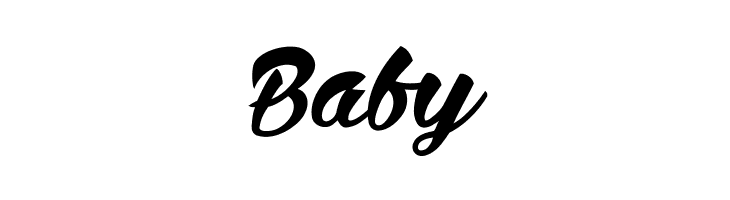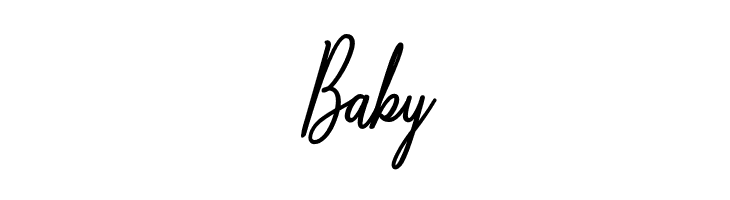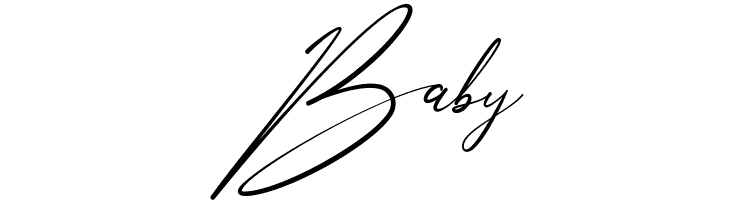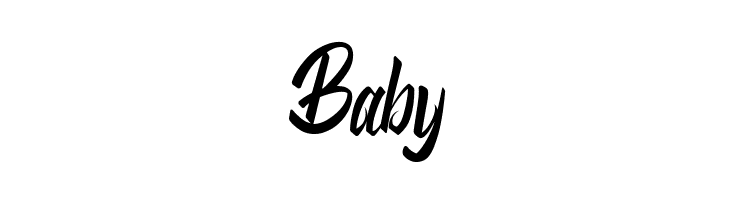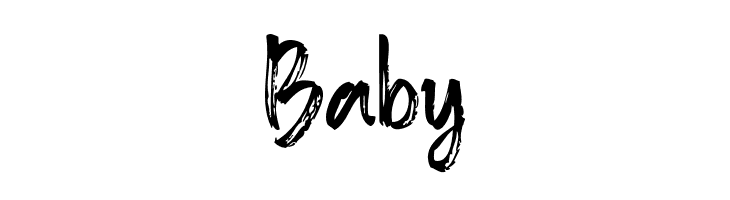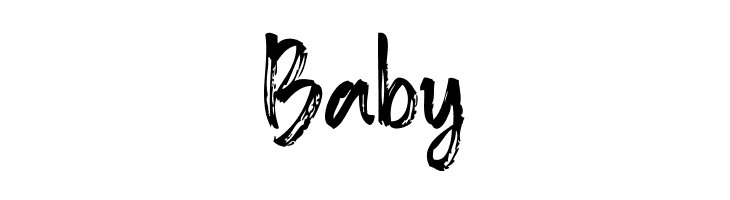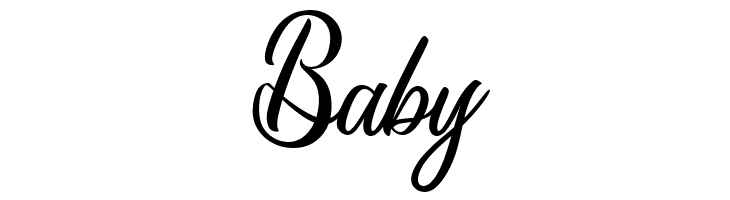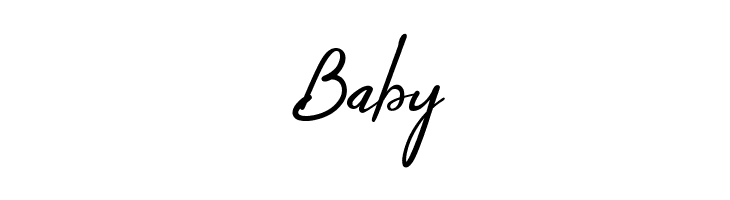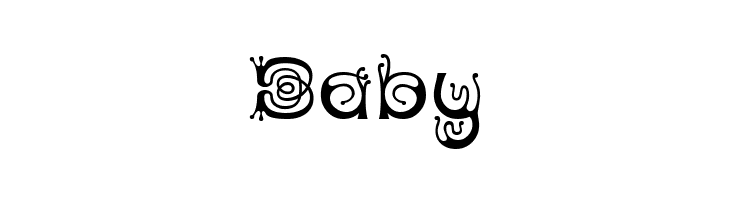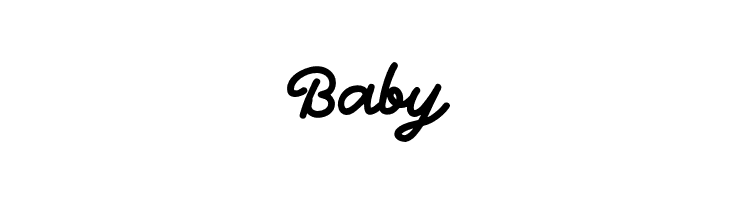
• Anthalucya
A graceful script font with fluid, connected strokes and elegant style.
• Anthares Demo Regular
A bold, expressive script font with flowing, cursive letterforms.
• AntharisDemo
A bold, flowing script font with a modern and playful style.
• AntharisDemo
A bold, playful script font with dynamic, flowing strokes.
• Anthea Personal Use ONLY
An elegant script font with flowing, interconnected letters and a calligraphic style.
• Anthellia DEMO VERSION
An elegant script font with fluid, cursive strokes and decorative swashes.
• Anthellia DEMO VERSION Italic
An elegant, cursive script font with flowing lines and ornate flourishes.
• Anthello
A cursive, flowing script font with smooth, rounded strokes.
• Anthello
A playful and elegant script font with fluid, connected strokes.
• Anthem Minimalism script
A minimalistic and elegant script font with a modern touch.
• Anthem Nasney
A bold, dynamic script font with flowing, interconnected characters.
• Anthem of Narasi
A bold, flowing script font with interconnected, ornate characters.
• Antheme Regular
A dynamic, cursive script font with bold, flowing strokes and elegant flourishes.
• Anthemie
• Anthemis Personal Use Only
A bold, flowing script font with elegant, cursive letterforms.
• Anthemy Script
A flowing, cursive script font with elegant, interconnected strokes.
• Anther Brush
A bold, expressive brush-style font with dynamic strokes and a handcrafted appearance.
• AntherBrush
A bold, brush-style font with dynamic, hand-painted strokes.
• Antherton Cloister
A decorative and whimsical font with intricate flourishes and playful extensions.
• Antherton Cloister
• Anthery Collection DEMO
A sophisticated cursive script with elegant, flowing strokes.
• Anthoine